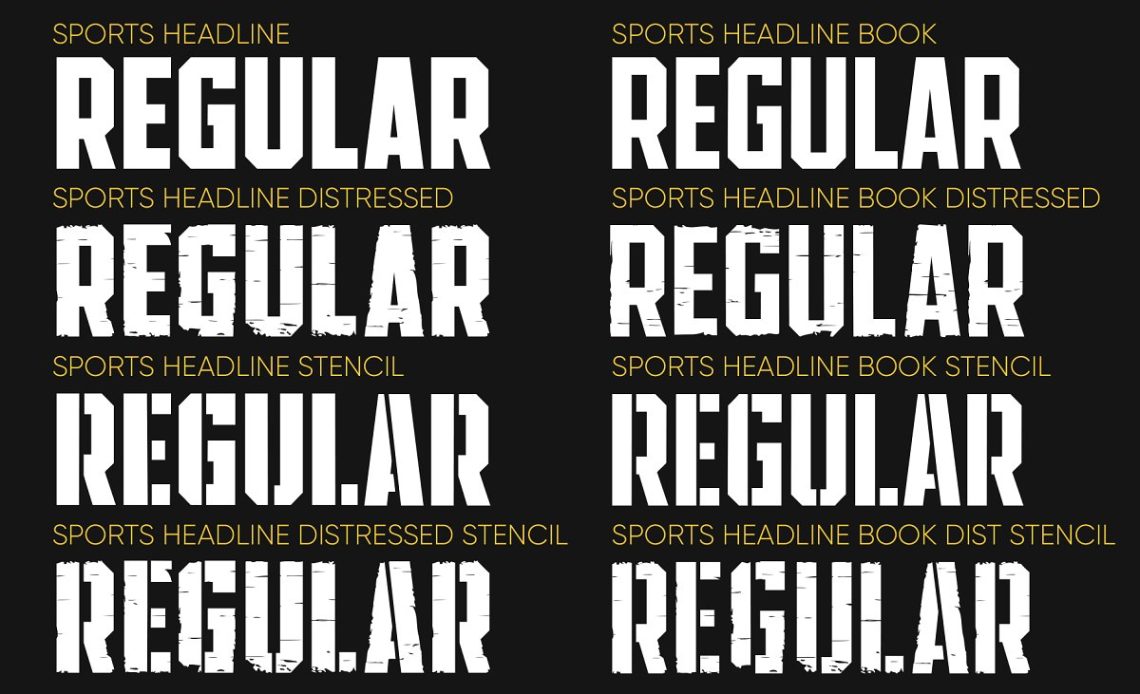
Introducing the Sports Headline Font Bundle - the ultimate collection of 16 fonts that will take your designs to a whole new level! Created by the talented font designer, Jon Swinn, this bundle is perfect for anyone looking to make a statement with their typography.
With its sleek and stylish sans serif font family, the Sports Headline Font Bundle is the best choice for all your Christmas poster needs. Whether you're designing holiday party invitations, festive banners, or seasonal advertisements, these fonts will add a touch of elegance and uniqueness to your projects.
What sets this bundle apart is its versatility and range of styles. Each font in the collection is available in OTF, TTF, WOFF, and WOFF2 formats, ensuring compatibility across different devices and platforms. From bold and impactful to distressed and stencil-inspired, there's a font for every creative vision.
Imagine the impact of using Sports Headline on your Christmas posters. The clean lines and modern aesthetic will instantly grab your audience's attention, while the italic variations add a touch of sophistication. Want to make a bold statement? Try Sports Headline Stencil for a unique and eye-catching effect.
But it doesn't stop there. The Sports Headline Distressed fonts bring a vintage and worn-in feel to your designs, perfect for creating a nostalgic atmosphere. Use them to evoke memories of classic sports magazines or to add a hint of authenticity to your retro-themed projects.
Looking for a lighter touch? The Sports Headline Semi Light fonts offer a more delicate and refined option. They are perfect for adding a touch of elegance to your Christmas cards or creating a subtle, yet impactful, headline for your website.